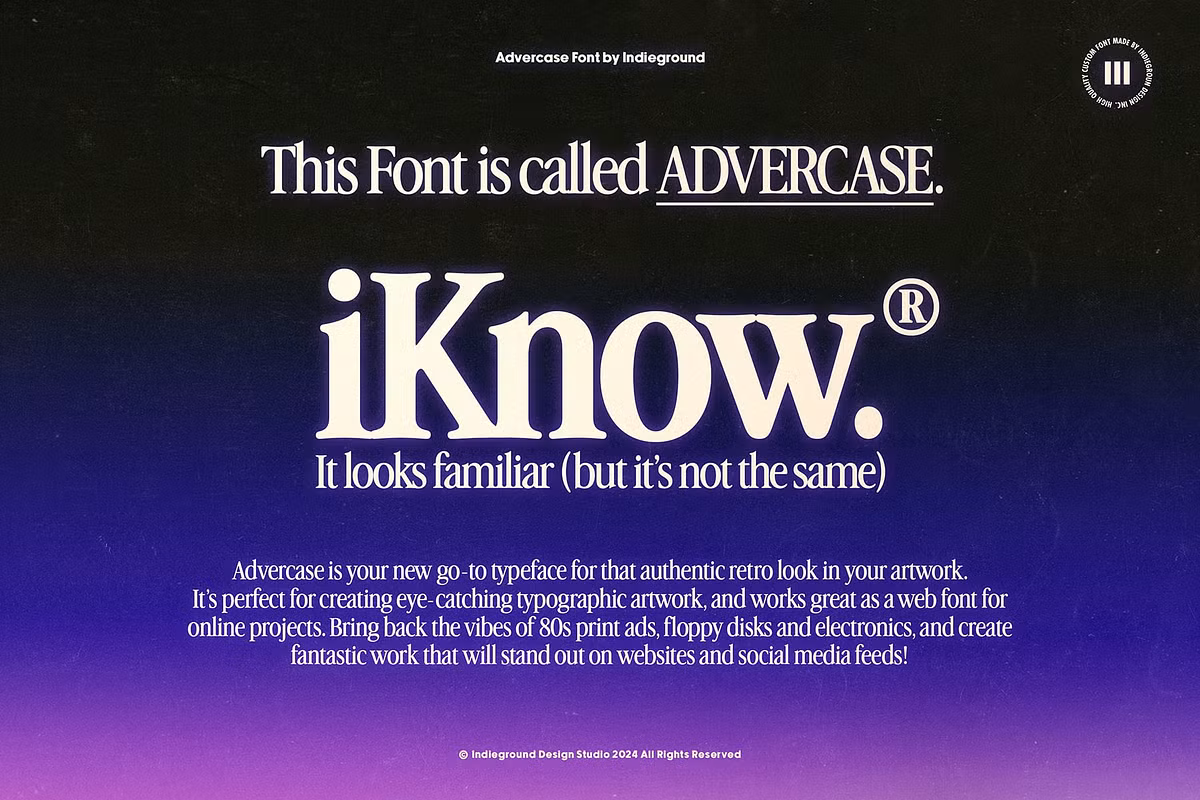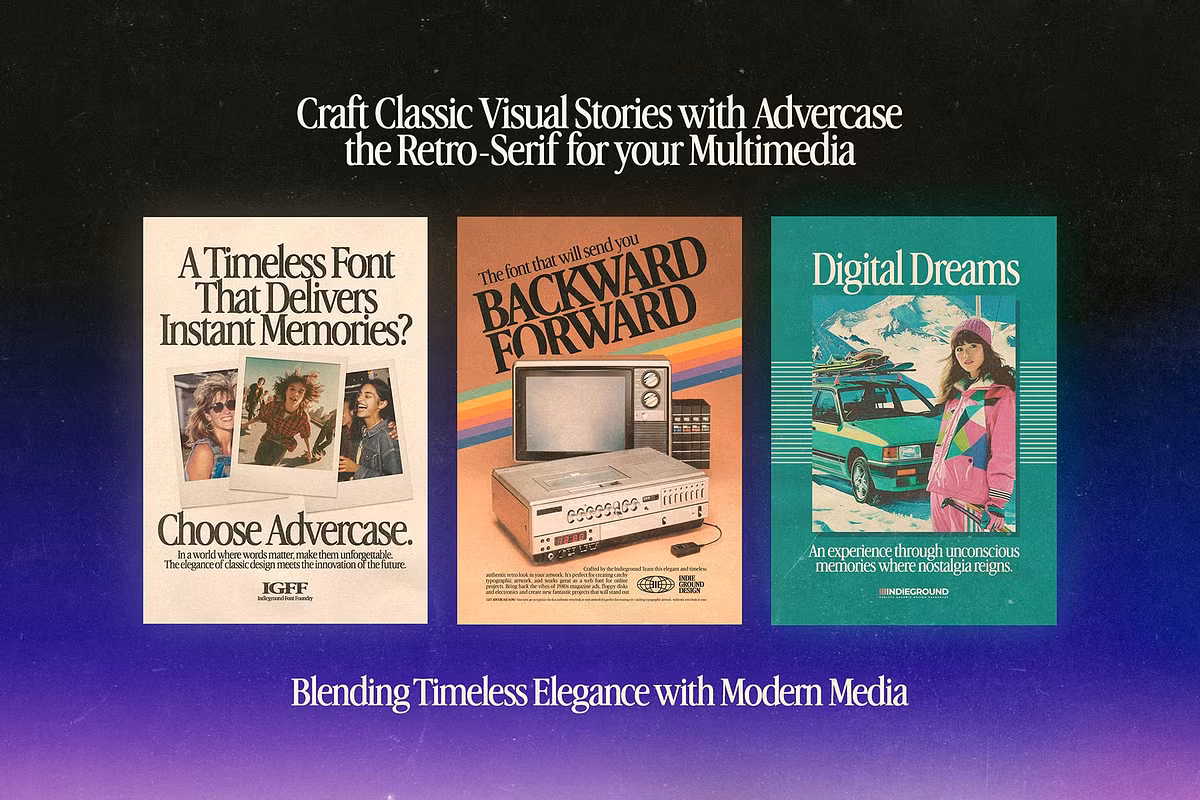
Advercase Font: Retro Serif Typeface for Vintage Aesthetic Design
The Advercase Font, carefully made by Indieground, is a beautiful old-style serif font that reminds us of old ads and classic computers. It has a special charm that takes us back to the 80s and 90s, with a mix of old and new styles. If you’re making graphics, building a website, or creating social media posts, the Advercase Font is a great choice for getting that real vintage feel. It’s perfect for adding a touch of nostalgia to your work, and its classic look will make your designs stand out.
Preview of Advercase Font showcasing vintage style
Advercase Font exemplifying its retro aesthetic.
With its unique blend of old and new, the Advercase Font is a great tool for anyone who wants to create something that looks truly retro.
The Advercase Font gets its inspiration from the classic Apple Garamond, a typeface that was all over Apple’s ads back in the day. What makes Advercase stand out is its simple, yet elegant look – think clean lines and smooth curves. This makes it a great choice for all sorts of design projects. With its retro vibe and serif style, Advercase brings a touch of nostalgia to the table, while also giving modern designs a sleek, sophisticated feel.
The Advercase Font has a big collection of letters, numbers, and special characters, so it’s really versatile and can be used for all sorts of creative projects. What’s really cool about this font is its one-of-a-kind design, which makes it perfect for using in headlines and body text – this means designers can create layouts that look really cohesive and are visually appealing.
Example of Advercase Font used in a design layout
Advercase Font used in a creative layout.
This font is great for making things look good, whether you’re working on a big project or just something small.
Character Sets and Glyphs
Advercase Font is robustly equipped with a total of 218 elements, ensuring that you have all the typographic tools you need at your disposal. This extensive character set includes:
• Uppercase and lowercase letters
• Numerals
• Special characters and symbols
• Beautifully designed glyphs that enhance your design
The inclusion of these diverse elements allows for creative flexibility and the ability to cater to various design needs, whether you are crafting a retro logo, designing a poster, or developing a theme for a website.
Use Cases for Advercase Font
Advercase Font shines in a myriad of creative projects. Here are some compelling use cases:
• Graphic Design: Perfect for creating logo designs that need a classic touch, Advercase adds a layer of sophistication and nostalgia.
• Print Media: Whether you’re designing brochures, flyers, or posters, Advercase Font will convey a vintage vibe that attracts attention.
• Social Media Posts: Capture the essence of retro on social media platforms with visually striking posts that feature Advercase Font.
Advercase Font showcased in print media
Advercase Font in print media examples.
Each of these use cases demonstrates the font’s versatility and capability to enhance any creative project, making it an essential tool for designers looking to evoke a sense of nostalgia while maintaining modern elegance.
To further elevate your designs, consider pairing Advercase Font with complementary typefaces. Here are some pairing suggestions:
• Helvetica: A modern sans-serif that contrasts beautifully with the vintage feel of Advercase, making it perfect for subheadings or body text.
• Raleway: This elegant sans-serif can provide a contemporary touch when paired with Advercase, ideal for minimalist designs.
• Montserrat: The geometric style of Montserrat can balance the ornate features of Advercase, making it suitable for playful yet professional designs.
When choosing a pairing, consider the overall tone of your project. The right combination will create harmony and enhance the visual impact of your artwork.
Whether you’re working on a big project or just want to add some flair to your everyday work, Advercase Font is a great choice. It’s a powerful tool that can help you create designs that stand out in a world where visuals are everything. By using Advercase, you can make your work more engaging, more memorable, and more effective at getting your message across. So why not give it a try and see what you can create?